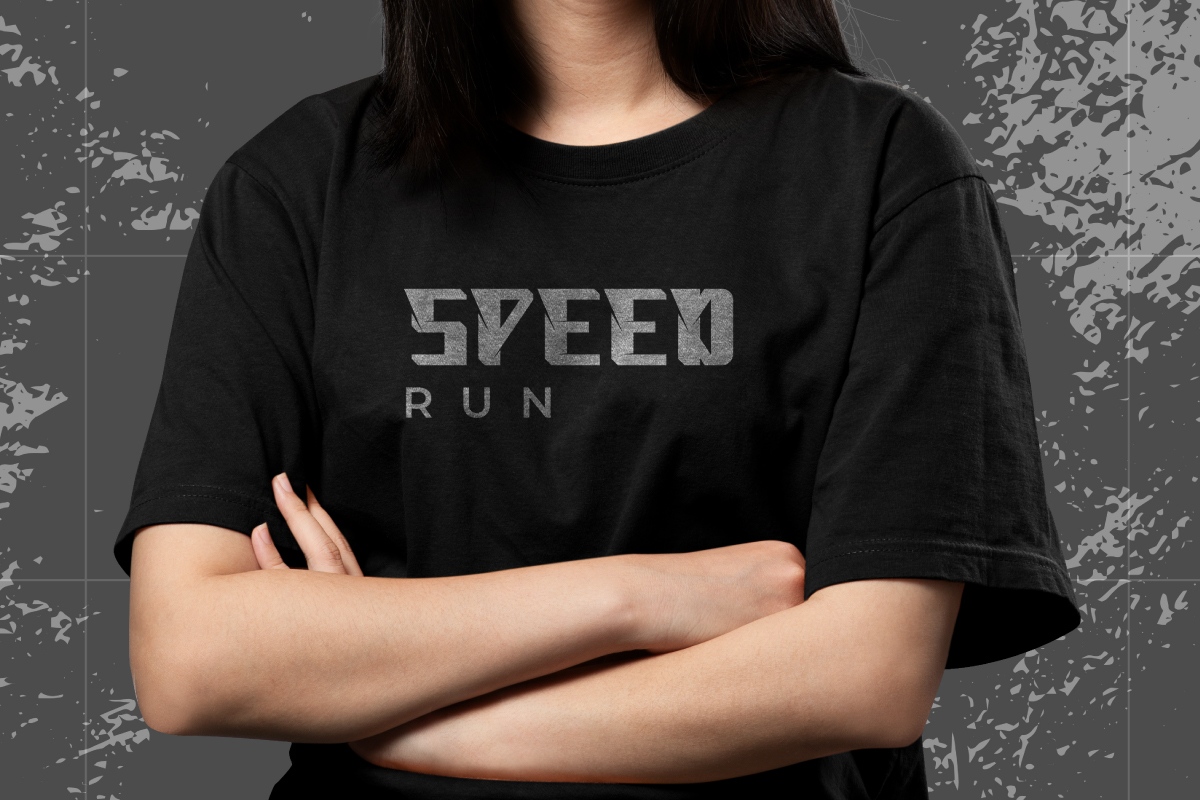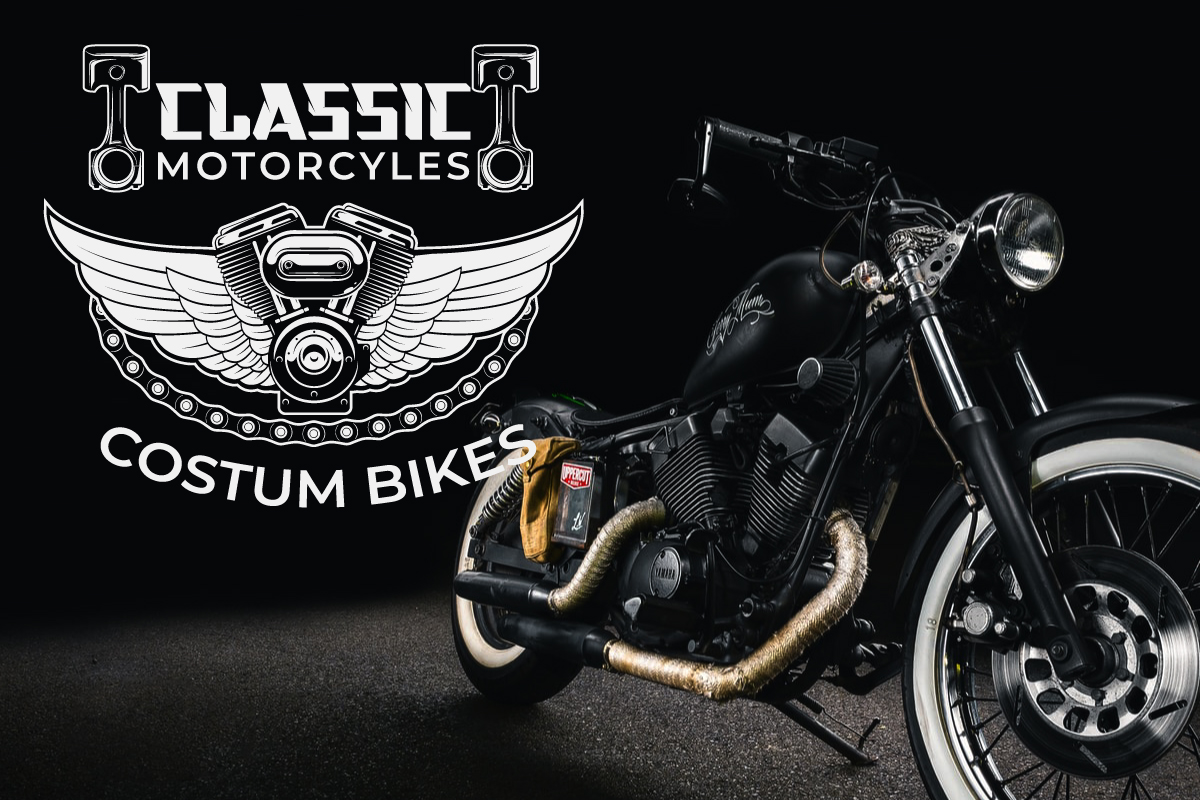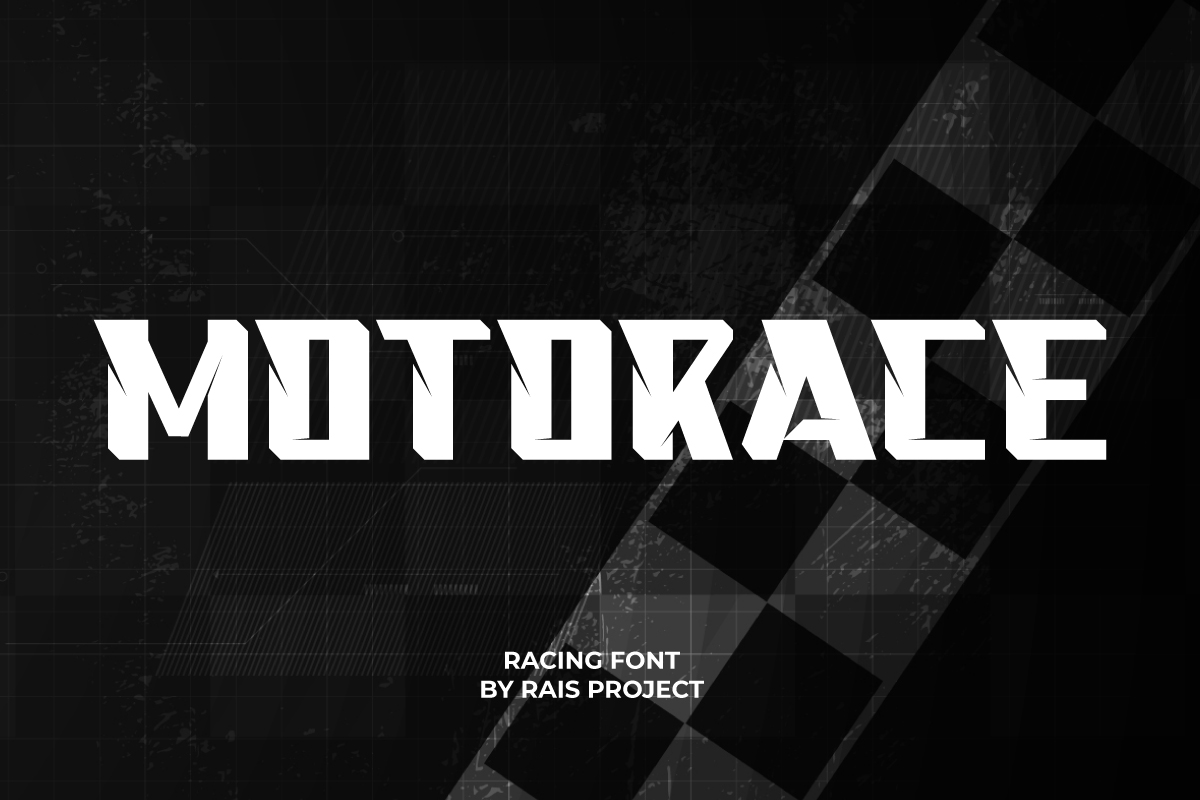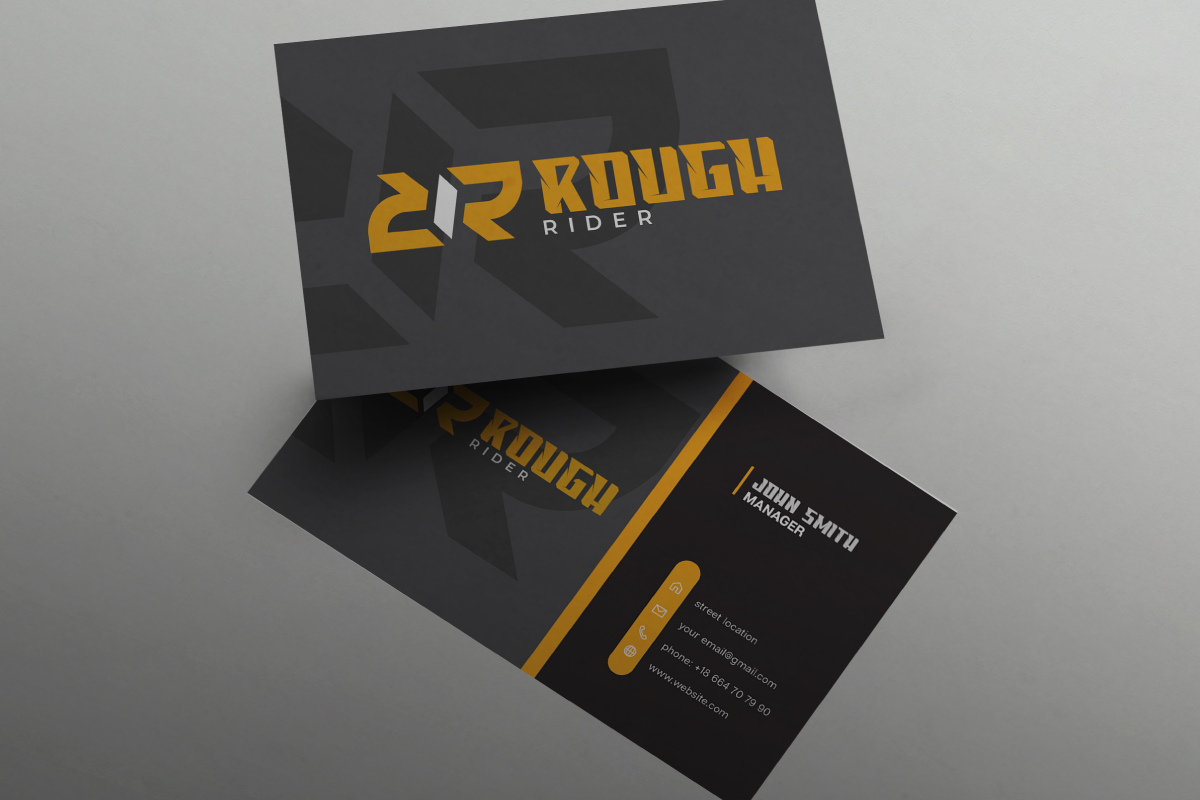
Motorace Display Font
This font was handcrafted for any your special projects including : headlines, promotion, events, branding, advertising, magazine, signage, invitation, stationery, social media posts, label, or and any projects that need racing style. The theme/industries of this font is Movie, Game, Magazine, Music, Video, Sports, Racing etc